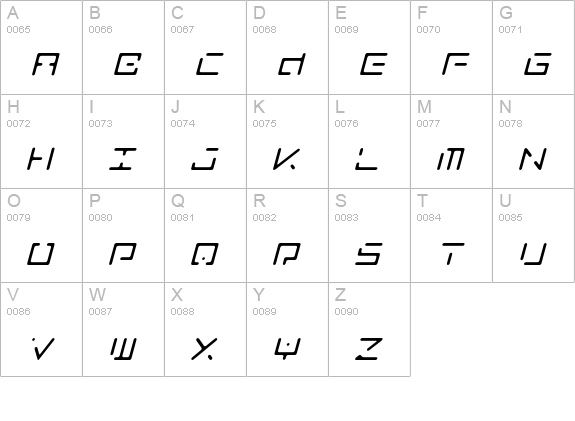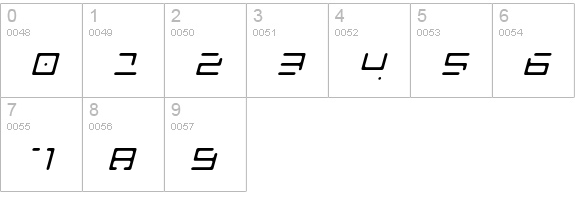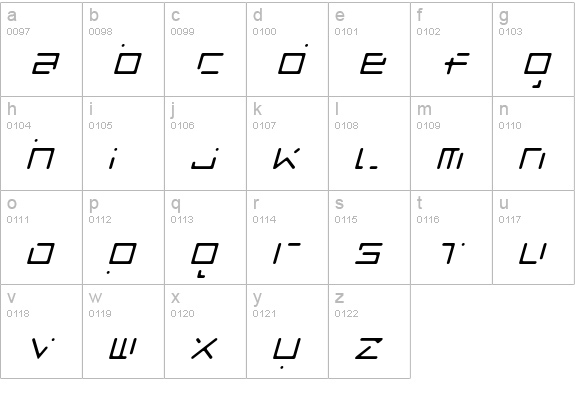
LuggageRoundBrokenLightObl Font Details
The LuggageRoundBrokenLightObl font is a unique and creative typeface that adds a touch of edginess to any design project. With its broken and irregular shapes, this font exudes a sense of ruggedness and individuality. The light weight of the font gives it a delicate and airy quality, making it perfect for adding a subtle touch of style to your projects. This font is freely available to download at FontsMarket.com, allowing you to easily incorporate its distinctive look into your designs without any cost. Whether you're working on a poster, logo, or website, the LuggageRoundBrokenLightObl font is sure to make a statement and set your work apart from the rest. Let your creativity shine with this one-of-a-kind font that is both bold and free to use.